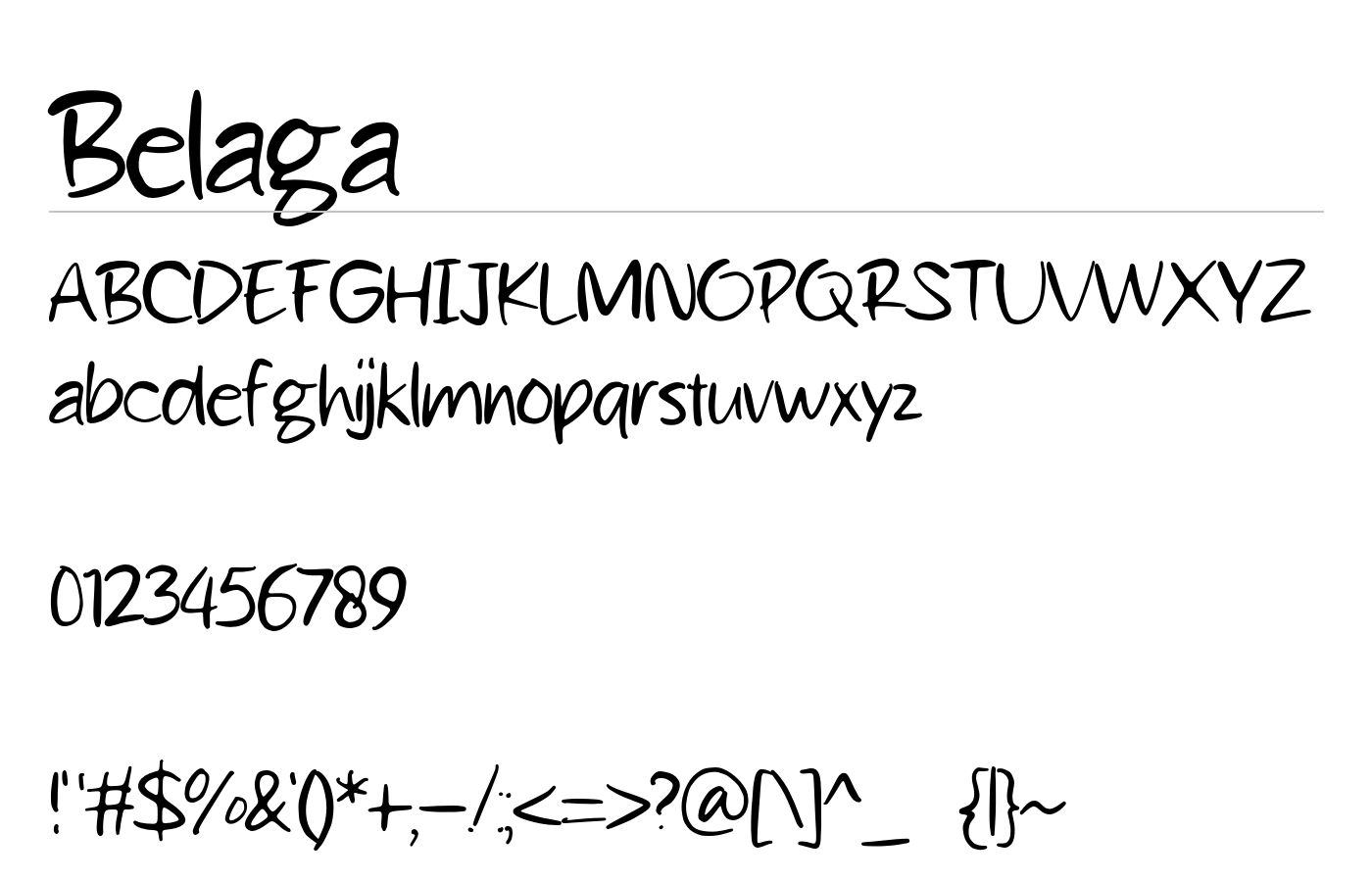
Belaga is a casual handwritten sans serif font with a lively and friendly feel, characterized by its slightly irregular strokes and playful letterforms. Its moderate weight and open spacing make it easy to read, perfect for informal designs such as greeting cards, personal branding, and creative projects that seek a warm, approachable vibe. This font’s unique style brings a personal touch that works well in both headlines and short text blocks, adding charm and character without sacrificing clarity.
Belaga Font
About Belaga Font